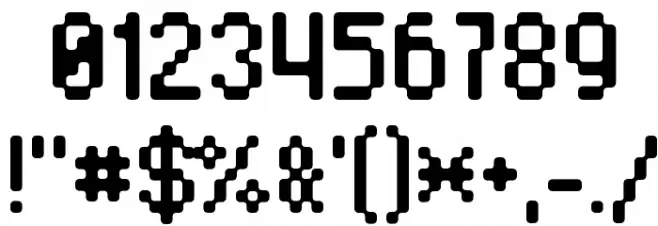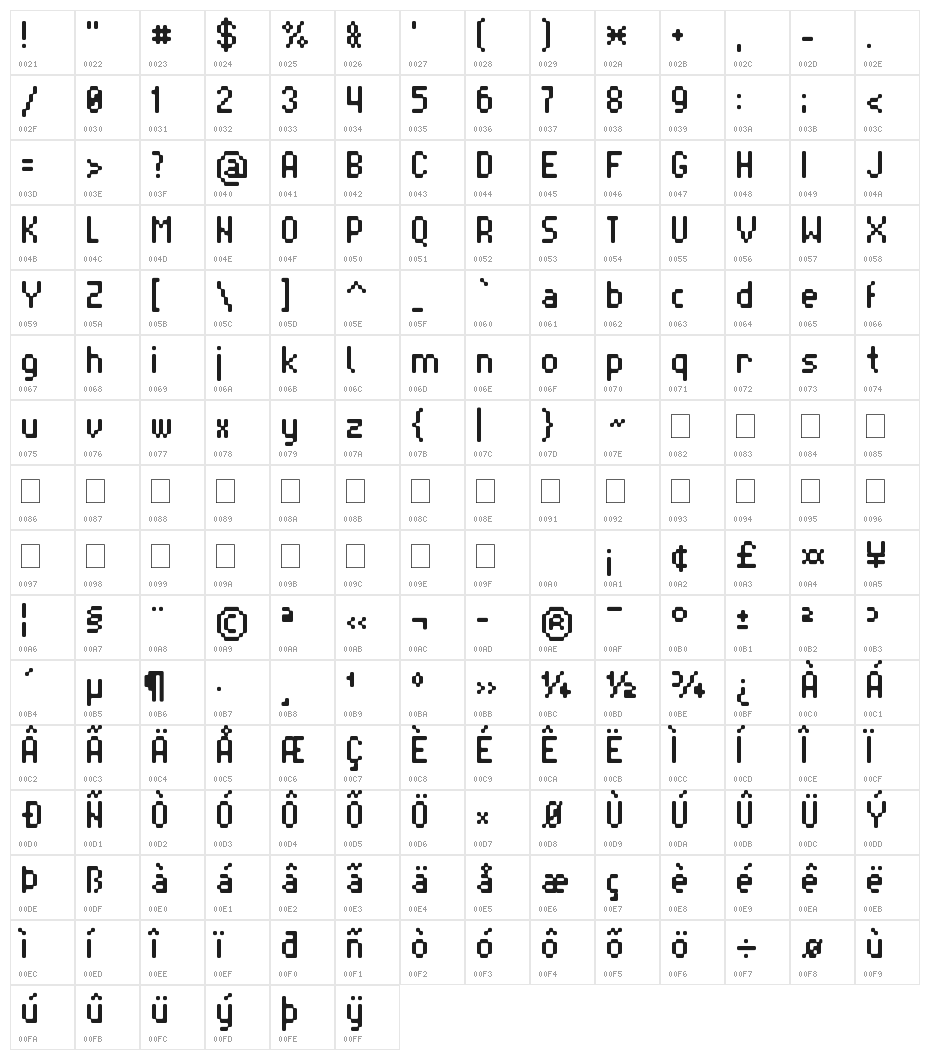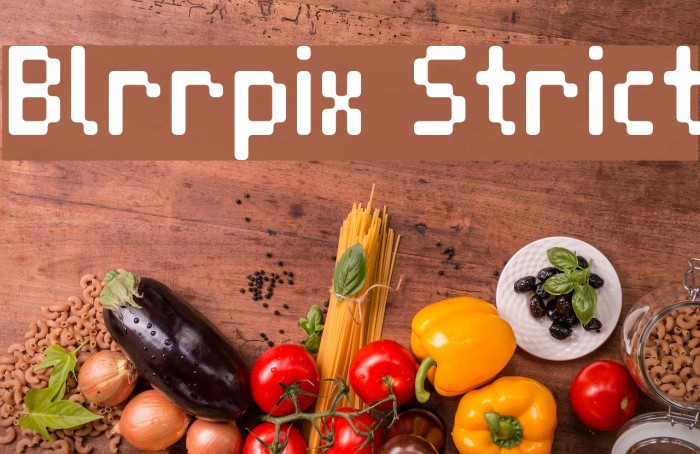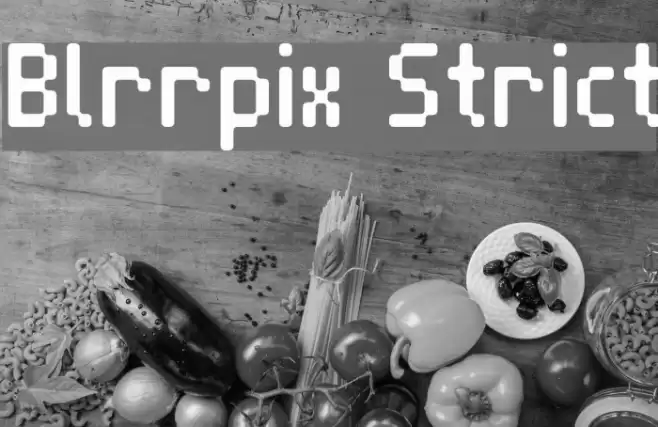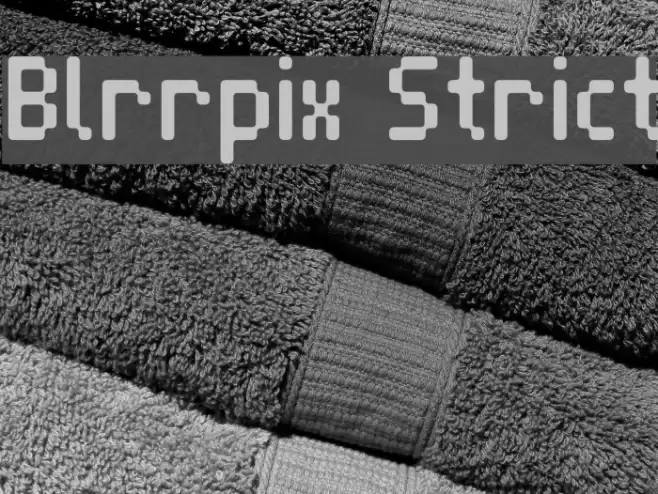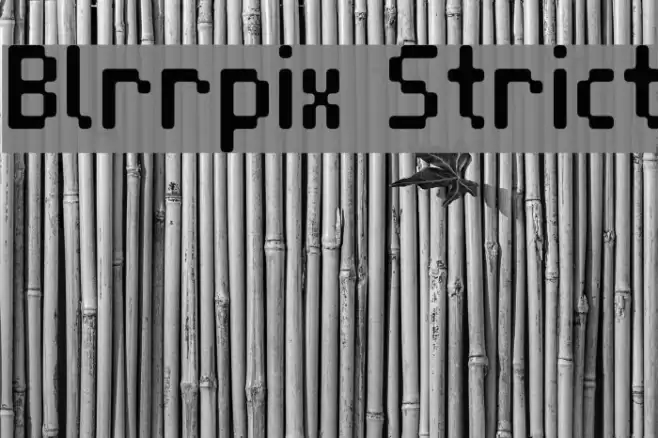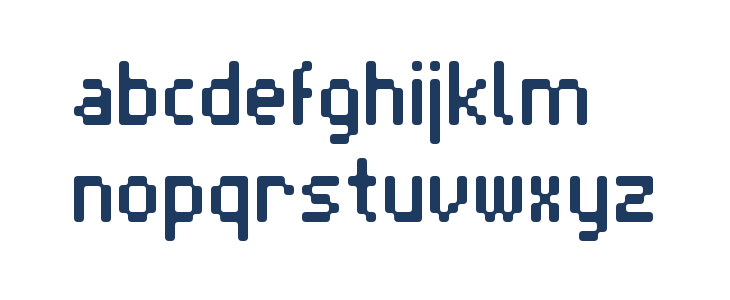
Blrrpix Strict Font
Blrrpix Strict Description
This font features a unique, pixelated design that evokes a retro, digital aesthetic. Each character is composed of bold, blocky shapes with rounded corners, reminiscent of early computer graphics or video game typography. The uniformity in height and width across both uppercase and lowercase letters creates a cohesive and structured appearance. Numbers and special characters maintain the same pixelated style, ensuring consistency throughout the typeface. This font's distinct style makes it stand out, offering a nostalgic yet modern twist on traditional digital fonts.
| Proposed Projects | Ideal for video game design, digital art projects, retro-themed posters, and tech-related branding. |